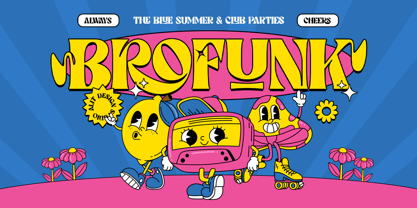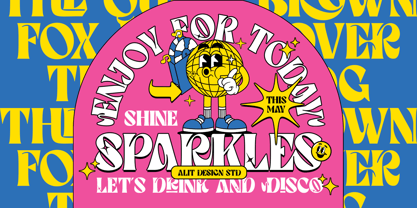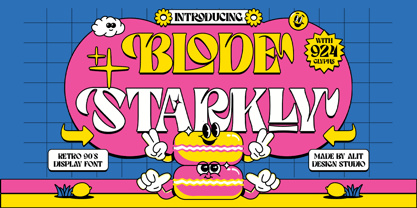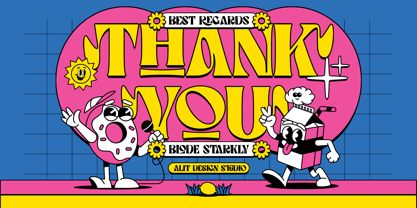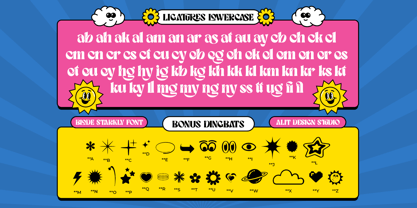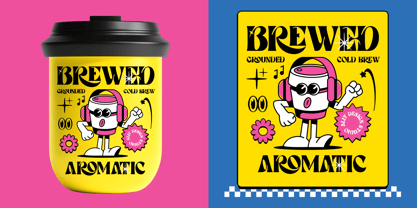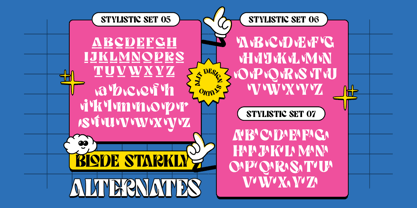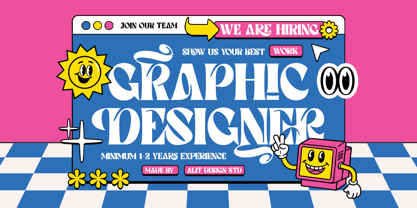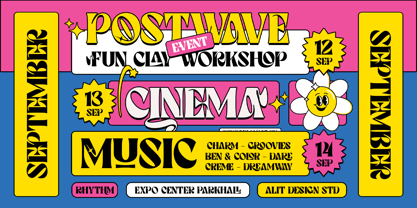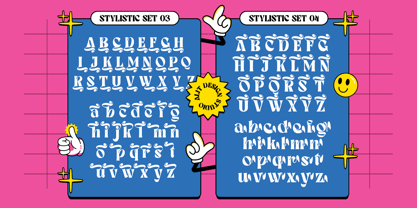
Blode starkly
by Alit Design
The Blode starkly Font Family was designed by Alit Suarnegara and published by Alit Design. Blode starkly contains 1 styles. More about this family
This is a fantastic font—it perfectly captures that trending "Retro-Futuristic Hippie" and "90s Psychedelic"aesthetic. Since this style is very popular on platforms like Creative Market and Behance, the description should focus on its versatility, its massive glyph count, and its fun personality. Here is a high-energy, marketing-driven product description for Blode Starkly Typeface: Blode Starkly: The Ultimate 90s Retro Psychedelic Display Font Step into a time machine and bring the vibrant, groovy energy of the 90s back to the future! Blode Starkly is not just a font; it’s a total design experience. Inspired by the playful, trippy, and expressive "Rubber Hose" and "Psychedelic" art styles, this typeface is designed to make your projects pop with personality and a touch of vintage nostalgia. Why Blode Starkly? Blode Starkly features bold, curvy forms and eccentric proportions that demand attention. Whether you are designing a high-end streetwear brand, a funky cafe menu, or a modern social media campaign, this font provides a unique balance between retro kitsch and modern sophistication. What’s Inside the Box? This is a powerhouse of a typeface with an incredible 924 Glyphs, giving you nearly infinite ways to customize your typography: 7 Distinct Stylistic Sets: From elegant swashes and swirls to liquid-melt effects and starry sparkles, you can change the mood of your text with a single click. Massive Ligature Library: Includes both Uppercase and Lowercase ligatures to create seamless, custom-looking letter connections that look like hand-lettered art. Bonus Dingbats: Get a collection of retro-themed icons—smiling suns, stars, clouds, and "Y2K" aesthetics—perfectly matched to the font’s style. Multilingual Support: Ready for global brands with a wide range of accented characters. Perfect For: Branding & Logos: Create an iconic identity that stands out. Poster Design: Bold headlines that scream retro-fun. Merchandise: Ideal for T-shirts, stickers, and tote bags. Social Media: Eye-catching quotes and "Gen-Z" aesthetic layouts. Editorial: Unique titles for magazines and lookbooks. Technical Features: Uppercase & Lowercase Numbers & Punctuation Full Stylistic Alternates Make your designs "Starkly" different. Add a dose of 90s magic to your creative toolkit with Blode Starkly today!
Designers: Alit Suarnegara
Foundry: Alit Design